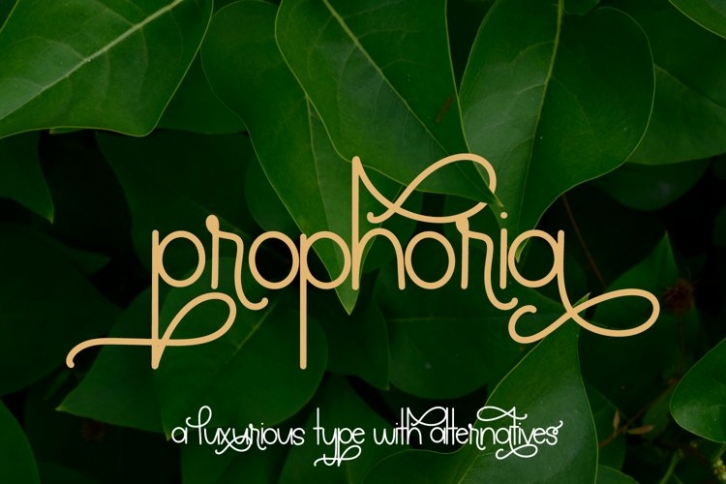
Prophoria is a trendy and unique font with an authentic style. It was designed by plusstore and it's a great choice for creative people who need such a font. It was released on March 3, 2022 and the file size is 6.61 MB. Prophoria will add an organic vibe to any design idea!